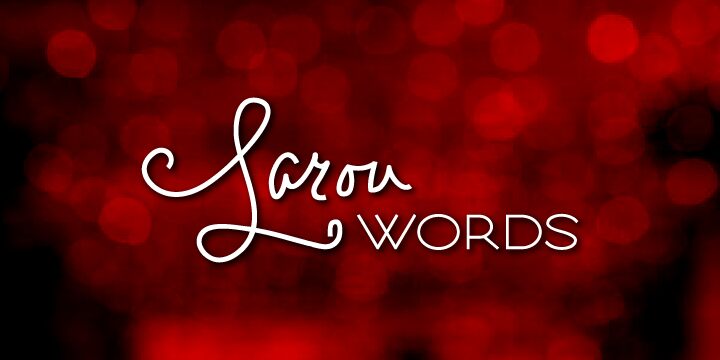
LarouWords by Emily Conners of Emily Lime Design is a free handwritten font with the fluidity of an elegant signature. Its very fine strokes form tall loops, compact joins, and extravagant flourishes that sweep well beyond the letters. The result is airy and distinctly personal.
Wedding stationery is its clearest fit, especially invitations and place cards that benefit from graceful, continuous lettering. It also suits boutique branding and fashion editorials aimed at clients who appreciate delicate, romantic detail.